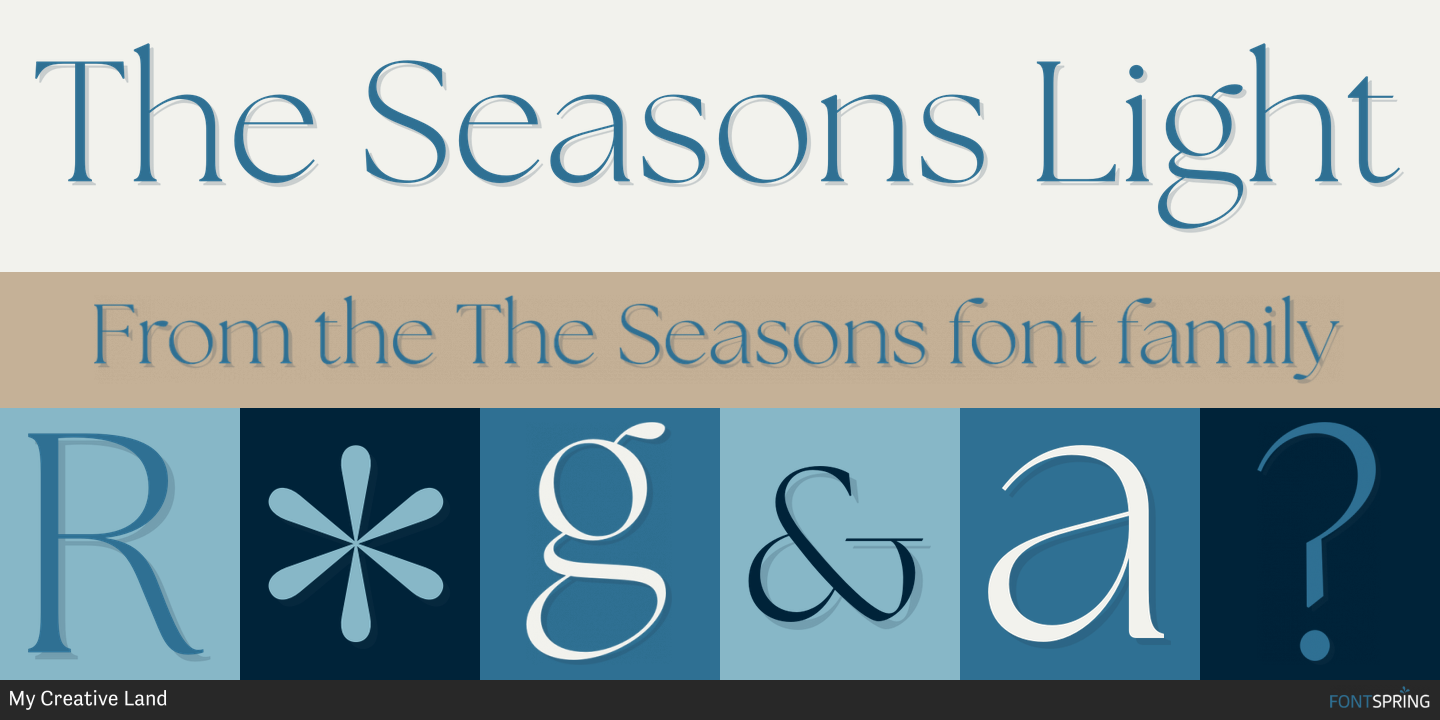
The Seasons Light Font
The Seasons Light Font - Download the seasons light font. The seasons font embodies a harmonious combination of timeless serif characters with a whisper of vintage glamour. This is a font family consisting of a high contrast serif fonts with a vintage chic look, with corresponding calligraphic cursive italics that are based on a number of humanistic italic. Adobe fonts is the easiest way to bring great. This font features elegant and refined letterforms with high contrast between thick. Elegant serif font with high contrast and sharp serifs. Modern serif fonts in high contrast make it a cool collection that. The seasons is an elegant, classic serif font family, featuring high contrast fonts with vintage elegance, as well as calligraphic cursive italics inspired by various humanistic italic. Explore the seasons designed by elena genova at adobe fonts. A serif typeface with 6 styles, available from adobe fonts for sync and web use.
This is a font family consisting of a high contrast serif fonts with a vintage chic look, with corresponding calligraphic cursive italics that are based on a number of humanistic italic. Adobe fonts is the easiest way to bring great. A serif typeface with 6 styles, available from adobe fonts for sync and web use. Explore the seasons designed by elena genova at adobe fonts. Elegant serif font with high contrast and sharp serifs. The seasons font embodies a harmonious combination of timeless serif characters with a whisper of vintage glamour. The seasons is an elegant, classic serif font family, featuring high contrast fonts with vintage elegance, as well as calligraphic cursive italics inspired by various humanistic italic. This font features elegant and refined letterforms with high contrast between thick. Download the seasons light font. Modern serif fonts in high contrast make it a cool collection that.
This font features elegant and refined letterforms with high contrast between thick. A serif typeface with 6 styles, available from adobe fonts for sync and web use. Adobe fonts is the easiest way to bring great. Modern serif fonts in high contrast make it a cool collection that. This is a font family consisting of a high contrast serif fonts with a vintage chic look, with corresponding calligraphic cursive italics that are based on a number of humanistic italic. Download the seasons light font. Elegant serif font with high contrast and sharp serifs. Explore the seasons designed by elena genova at adobe fonts. The seasons is an elegant, classic serif font family, featuring high contrast fonts with vintage elegance, as well as calligraphic cursive italics inspired by various humanistic italic. The seasons font embodies a harmonious combination of timeless serif characters with a whisper of vintage glamour.
Adobe fonts is the easiest way to bring great. Download the seasons light font. Elegant serif font with high contrast and sharp serifs. Explore the seasons designed by elena genova at adobe fonts. This font features elegant and refined letterforms with high contrast between thick.
This is a font family consisting of a high contrast serif fonts with a vintage chic look, with corresponding calligraphic cursive italics that are based on a number of humanistic italic. A serif typeface with 6 styles, available from adobe fonts for sync and web use. The seasons is an elegant, classic serif font family, featuring high contrast fonts with.
The seasons font embodies a harmonious combination of timeless serif characters with a whisper of vintage glamour. The seasons is an elegant, classic serif font family, featuring high contrast fonts with vintage elegance, as well as calligraphic cursive italics inspired by various humanistic italic. Download the seasons light font. Elegant serif font with high contrast and sharp serifs. This is.
Adobe fonts is the easiest way to bring great. The seasons is an elegant, classic serif font family, featuring high contrast fonts with vintage elegance, as well as calligraphic cursive italics inspired by various humanistic italic. Download the seasons light font. Elegant serif font with high contrast and sharp serifs. Explore the seasons designed by elena genova at adobe fonts.
This is a font family consisting of a high contrast serif fonts with a vintage chic look, with corresponding calligraphic cursive italics that are based on a number of humanistic italic. Explore the seasons designed by elena genova at adobe fonts. A serif typeface with 6 styles, available from adobe fonts for sync and web use. Download the seasons light.
The seasons is an elegant, classic serif font family, featuring high contrast fonts with vintage elegance, as well as calligraphic cursive italics inspired by various humanistic italic. Explore the seasons designed by elena genova at adobe fonts. A serif typeface with 6 styles, available from adobe fonts for sync and web use. This font features elegant and refined letterforms with.
Elegant serif font with high contrast and sharp serifs. Modern serif fonts in high contrast make it a cool collection that. Download the seasons light font. The seasons is an elegant, classic serif font family, featuring high contrast fonts with vintage elegance, as well as calligraphic cursive italics inspired by various humanistic italic. Adobe fonts is the easiest way to.
Explore the seasons designed by elena genova at adobe fonts. This font features elegant and refined letterforms with high contrast between thick. Download the seasons light font. The seasons font embodies a harmonious combination of timeless serif characters with a whisper of vintage glamour. A serif typeface with 6 styles, available from adobe fonts for sync and web use.
This font features elegant and refined letterforms with high contrast between thick. Modern serif fonts in high contrast make it a cool collection that. Explore the seasons designed by elena genova at adobe fonts. Download the seasons light font. The seasons is an elegant, classic serif font family, featuring high contrast fonts with vintage elegance, as well as calligraphic cursive.
Explore The Seasons Designed By Elena Genova At Adobe Fonts.
The seasons font embodies a harmonious combination of timeless serif characters with a whisper of vintage glamour. This is a font family consisting of a high contrast serif fonts with a vintage chic look, with corresponding calligraphic cursive italics that are based on a number of humanistic italic. Download the seasons light font. This font features elegant and refined letterforms with high contrast between thick.